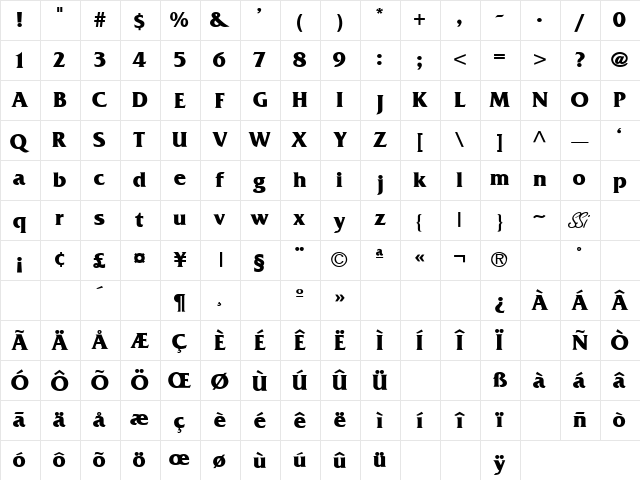
Muster Condensed SSi Bold Condensed
Design Context for Muster Condensed SSi Typeface
Muster Condensed SSi is a composed and adaptable typeface that performs quietly and consistently across a wide range of design contexts. Its bold stroke weight gives it real presence on the page. The condensed width makes it efficient for tight spaces without sacrificing legibility.